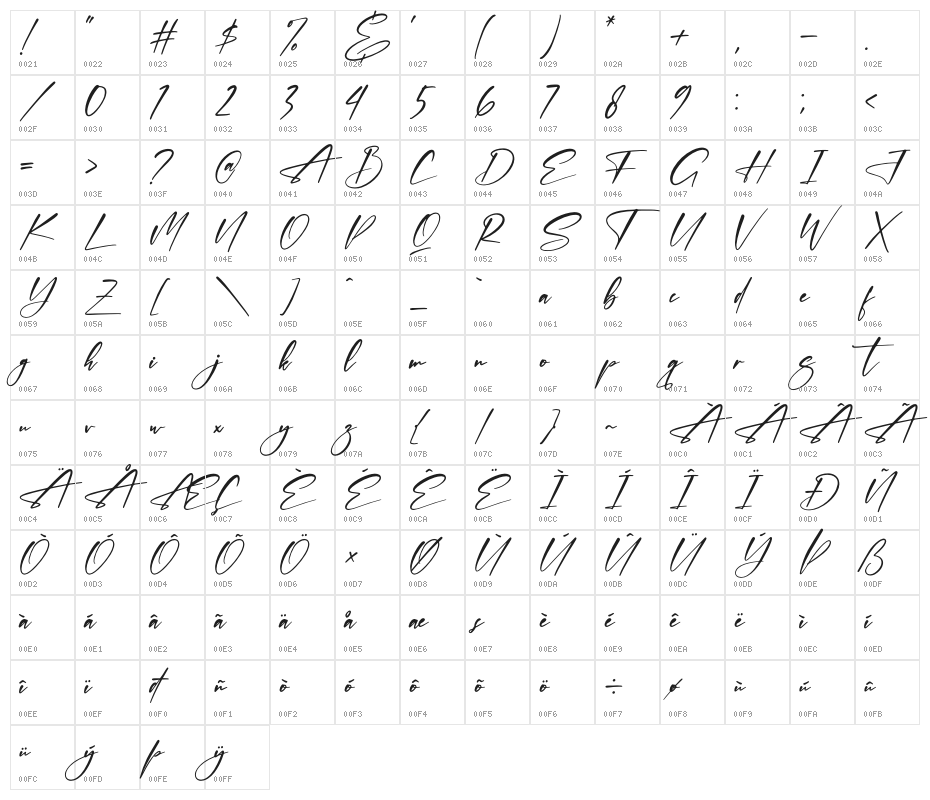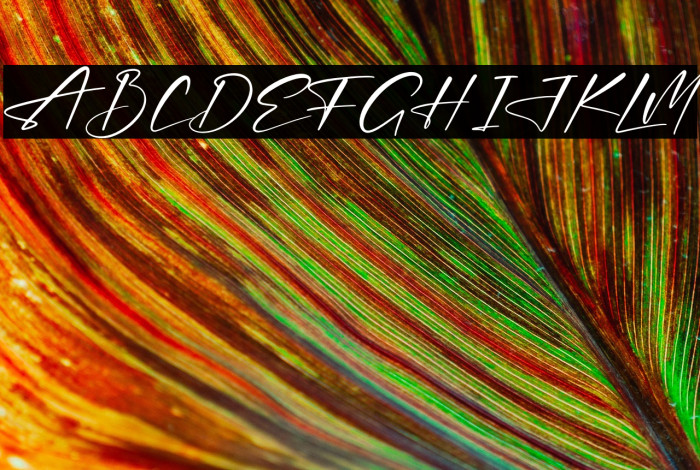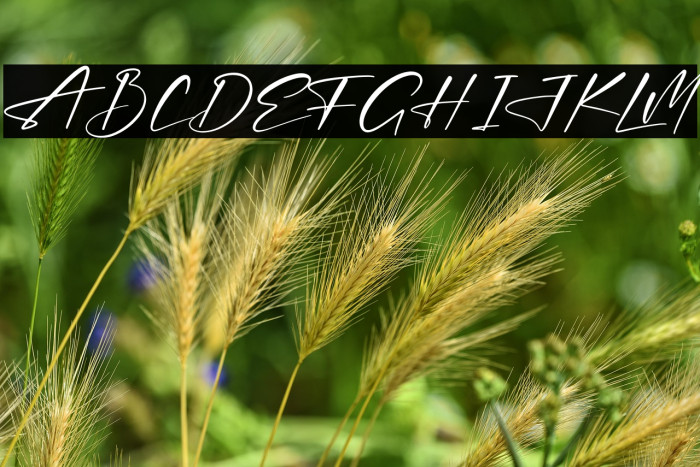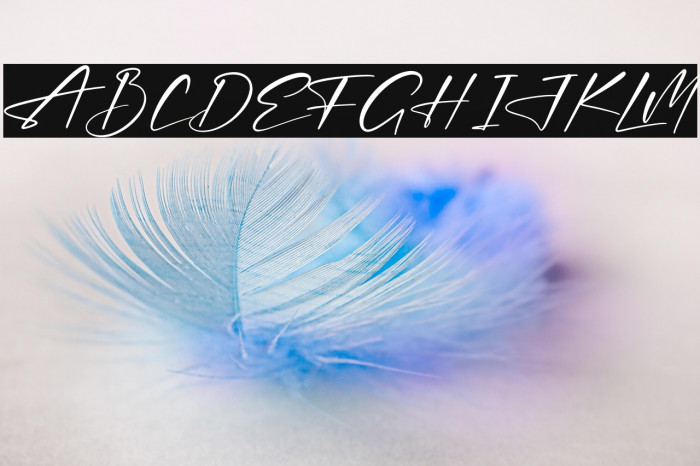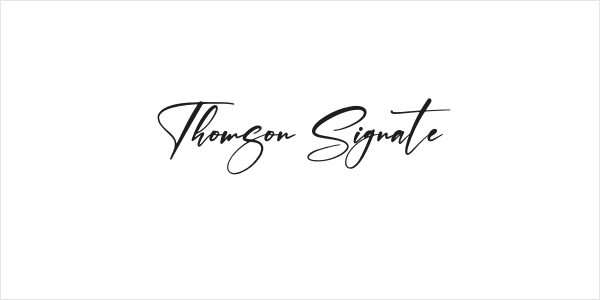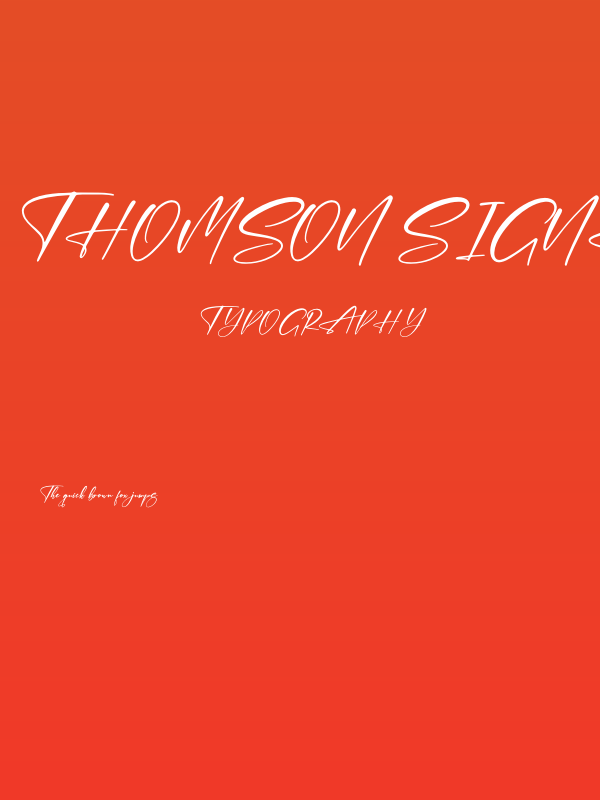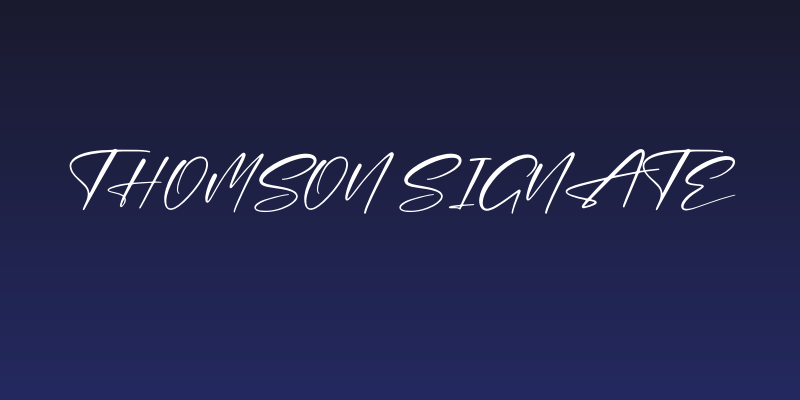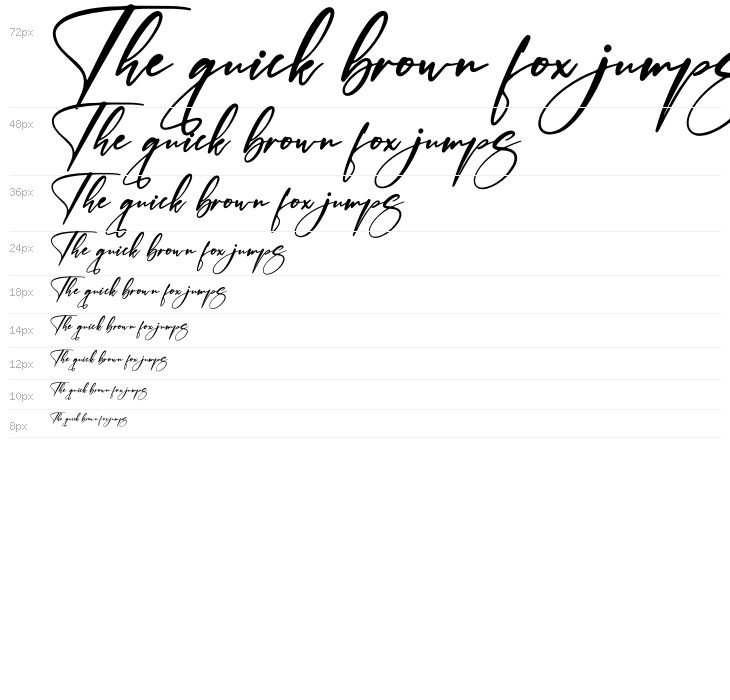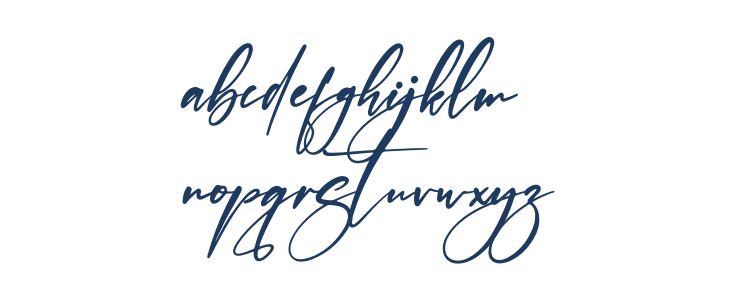
Thomson Signate Font
Thomson Signate Description
This font exudes a dynamic and expressive style, characterized by its fluid, cursive script that mimics the natural flow of handwriting. The letters are elegantly connected, with a slight slant that adds to its graceful appearance. The strokes vary in thickness, providing a medium contrast that enhances readability while maintaining an artistic flair. The uppercase letters are bold and prominent, while the lowercase letters are more delicate, offering a harmonious balance. The numerals and special characters are crafted with the same attention to detail, ensuring consistency across all elements. This font is perfect for projects that require a personal touch, such as invitations, greeting cards, or branding materials.
Use CaseLogos, Invitations, Artistic projects
Proposed ProjectsIdeal for wedding invitations, personal branding, greeting cards, and artistic projects.